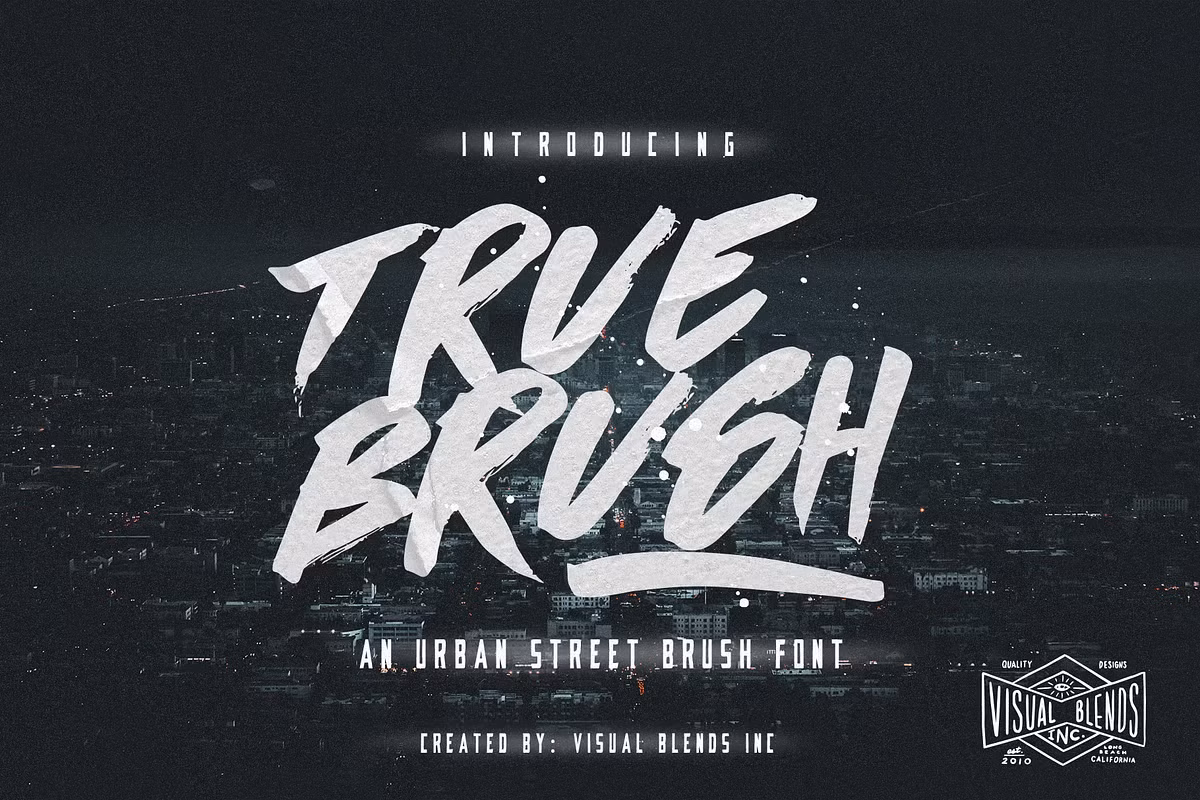
True Brush Font Free Download is a bold, energetic brush script font that captures the raw beauty of hand-painted lettering. Perfect for posters, apparel, branding, and social media graphics, this font adds a striking, handcrafted vibe to any project.
With its textured strokes and natural flow, True Brush Font Free Download brings a sense of movement and authenticity to your typography. Whether you're designing for a streetwear label, a creative campaign, or a personal blog, this font delivers powerful personality and artistic edge. Try it out in your next layout to see how it elevates your message—then move forward with a commercial license when you're ready to launch your design.